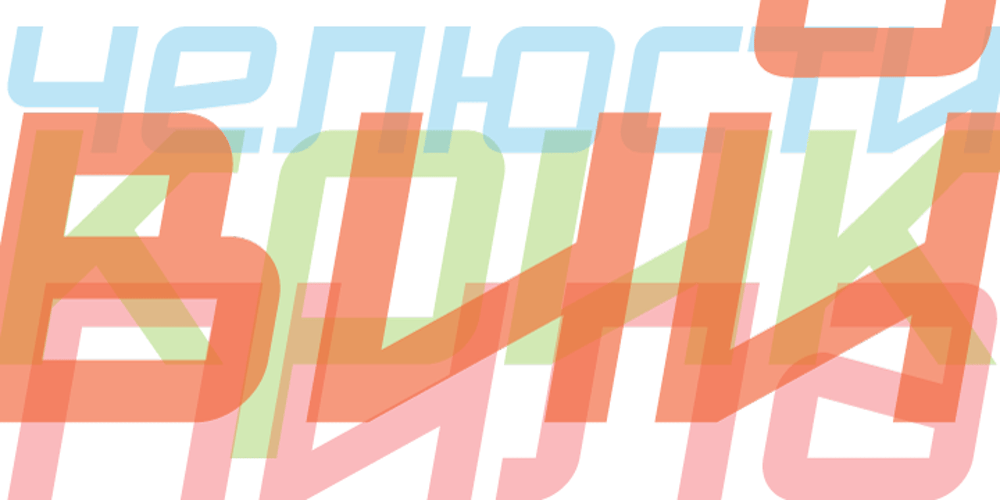
Softrobo Pro
Softrobo Pro font
Softrobo Pro Font Family was designed by Aliaksei Koval and published by Koval TF. Softrobo Pro contains 2 styles and family package options. Softrobo Pro is the further development of Softrobo font provided by Koval Type Foundry in 2008. Provided in 3 most popular formats: OpenType PS, TrueType and Type1. Fine-built, straight but not official, with soft corners is suitable for short texts, placards and advertising. It was inspired by the 1970s when people were mad about robots, space and so on. I decided to create a font as if it were a progressive font of the 1970s. This font supports the Latin-based languages: Albanian, Basque, Bielorussian (Latin), Breton, Catalonian, Chamorro, Croatian, Czech, Danish, Dutch (with Flemish), English, Estonian & Setu, Faroese, Finnish, French, Frisian, Gaelic (Irish), Galician, German (incl. eszett), Hungarian, Icelandic, Indonesian, Italian, Latvian, Lithuanian, Maori, Norwegian, Occitan, Portuguese, Rhaeto-Romance, Romanian, Saami (Lule & South), Slovak, Slovene, Sorbian Lower, Sorbian Upper, Spanish, Swedish, Tswana, and Turkish. It also supports the Cyrillic-based languages: Belorussian, Bulgarian, Crimian Tatar (Cyrillic), Karachay-Balkar, Kumyk, Macedonian, Russian, Serbian, and Ukrainian, Also included: ligatures, superior & inferior numbers set.